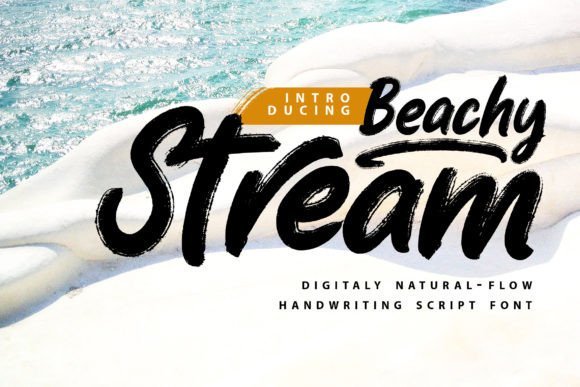
As a designer, there’s nothing quite like the feeling of landing on the perfect font for a project. Imagine you’re strolling along the beach, watching the waves roll in as the sun sets over the horizon. You’re in the zone, and the creative juices are flowing. Suddenly, you stumble upon the perfect font – one that captures the essence of the ocean breeze and the warmth of the sun-kissed sand.
Beachy Stream Font Key Features
- Unique Characteristics: This font features a unique, hand-drawn aesthetic with subtle beach-inspired elements, such as wave-like curves and organic shapes.
Designer Review: Beachy Stream Font
Overall, I think the Beachy Stream Font has some great qualities, but it’s not without its limitations. Let’s dive in and take a closer look.
- Unique, Beachy vibe: The font has a distinctive, laid-back feel that’s perfect for summer-themed projects or designs that evoke a relaxed, coastal atmosphere.
- Customization options: The font comes with a range of OpenType features, including ligatures, swashes, and alternative characters, which can be used to add extra flair to your designs.
- Legibility: Despite its cursive feel, the font is surprisingly easy to read, making it a great choice for body text or titles that need to be clear and concise.
- Lack of versatility: The font’s beachy vibe may not be the best fit for every project or design style.
- Some characters may be difficult to read: While the font is generally legible, some characters, such as the lowercase “a” and “e”, may be tricky to distinguish from one another.
- May not be suitable for small text: The font’s decorative elements can make it difficult to read in small sizes, which may limit its use in certain design contexts.
Overall, I think the Beachy Stream Font is a great choice for projects that require a relaxed, beachy vibe. However, it may not be the best fit for every design style or project. With some careful consideration and customization, it can be a valuable addition to any designer’s toolkit.
Getting the Most Out of Beachy Stream Font
To get the most out of Beachy Stream Font, use it for headings and titles in your designs. It’s perfect for creating a beachy or summer vibe. Pair it with a clean and simple font for body text to achieve a balanced look.
Beachy Stream Font is commonly used in designs related to summer, beach, or outdoor activities. It’s perfect for creating invitations, posters, or social media graphics for beach-themed events or promotions.